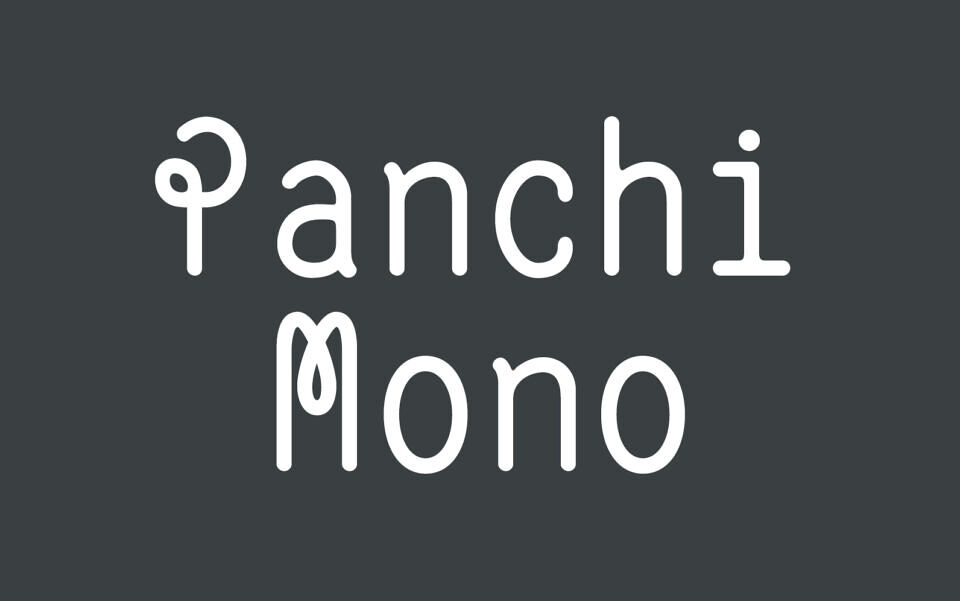
Panchi Mono is a monospace typeface inspired by 1960s lettering. Designed as part of my Digital Compost project, each glyph has the proportions of a hole in a punched card. It features 2 sets of caps, a “classic” one and an “alternative” one, with crazier shapes.